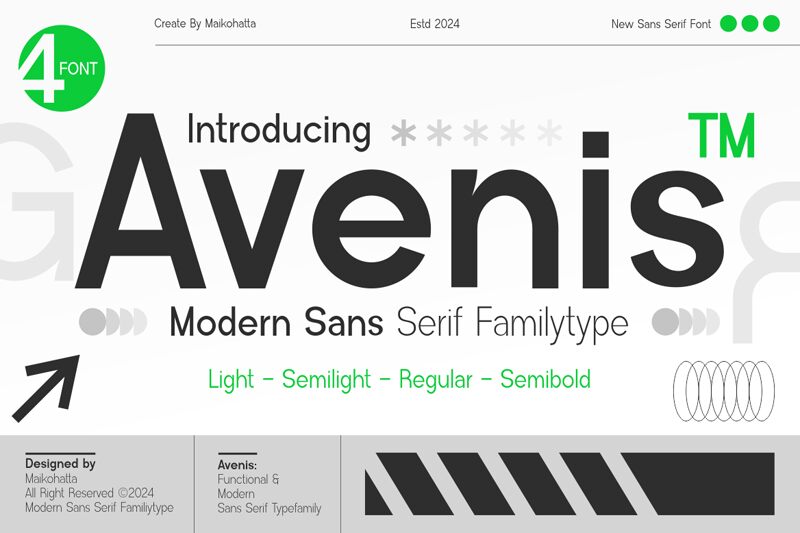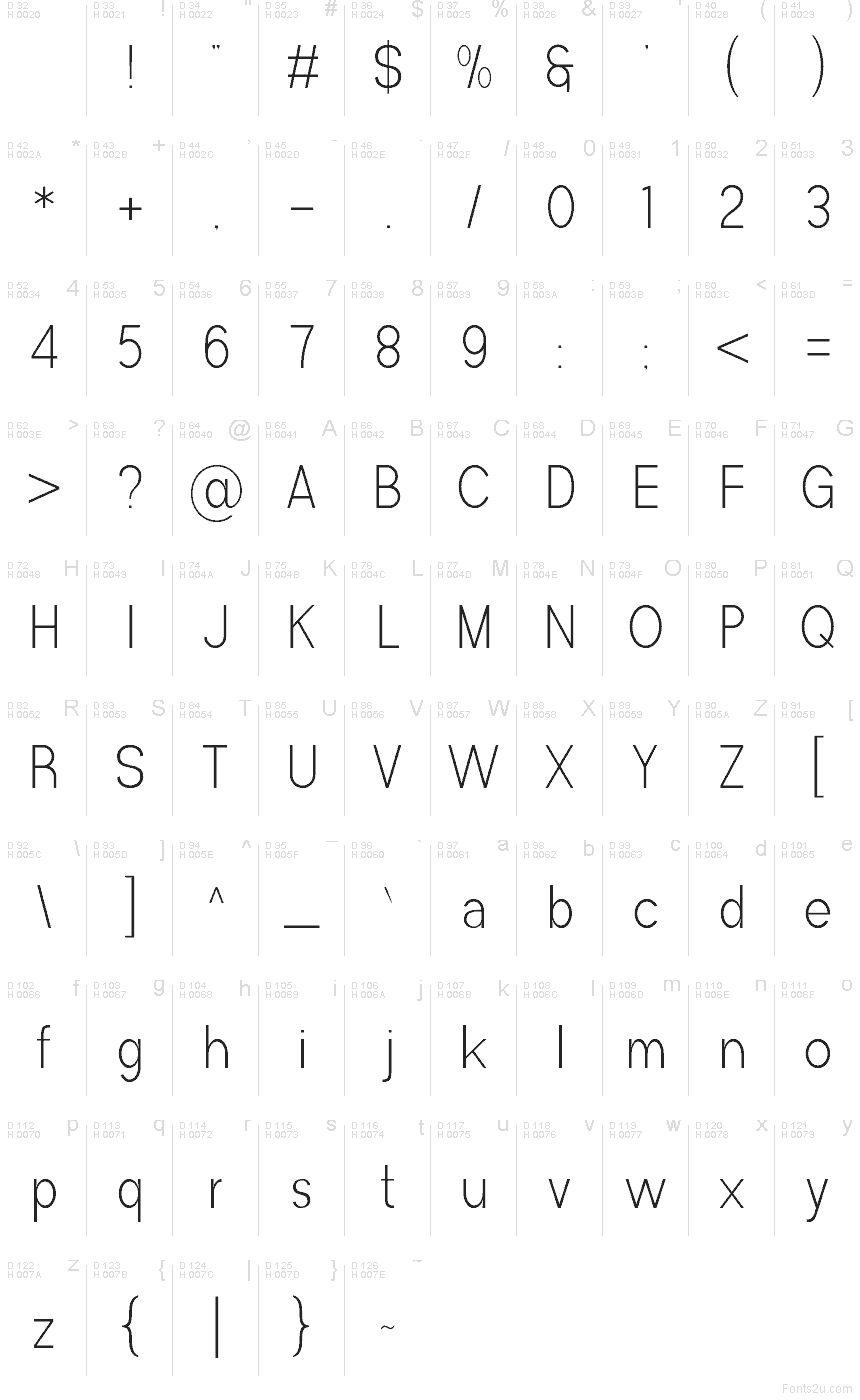
Avenis Light
Avenis Light font by Maikohatta is a free minimalist sans serif typeface that brings an ultra-thin, airy look without losing clarity. Its hairline strokes, straight spines, and open curves create a calm, weightless texture that feels precise rather than fragile, giving designers in the Avenis family a reliable light weight that still reads cleanly on screen and in print.
Using Avenis Light, you can give breathing room to fashion branding, editorial titles, app interfaces, portfolios, posters, and subtle website hero text. This free font shines when set large with generous letterspacing, and pairs smoothly with a sturdier neo-grotesk or humanist sans for body copy to keep layouts balanced and readable.